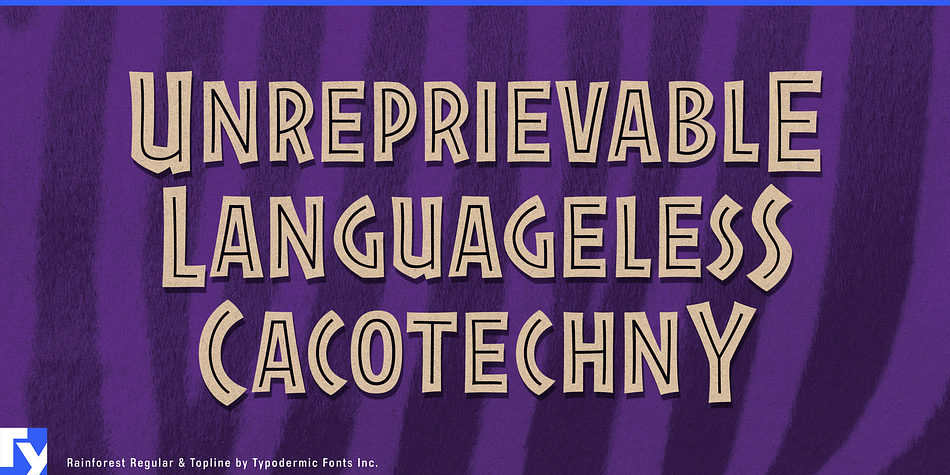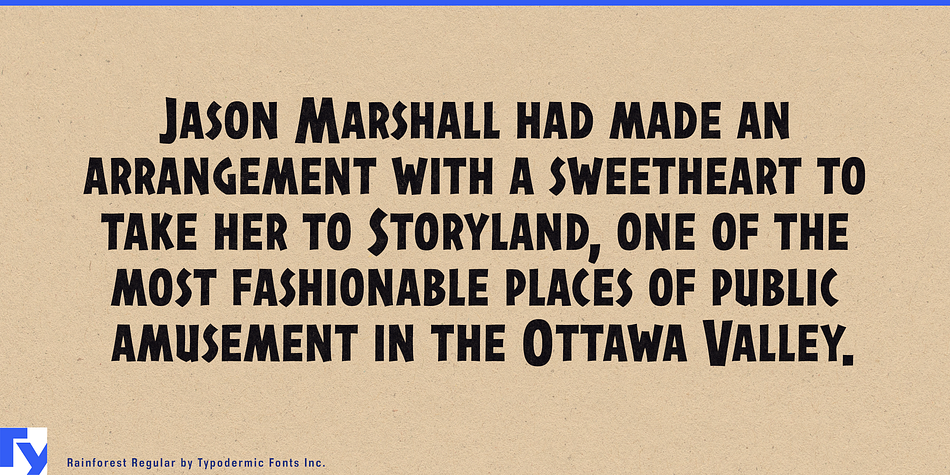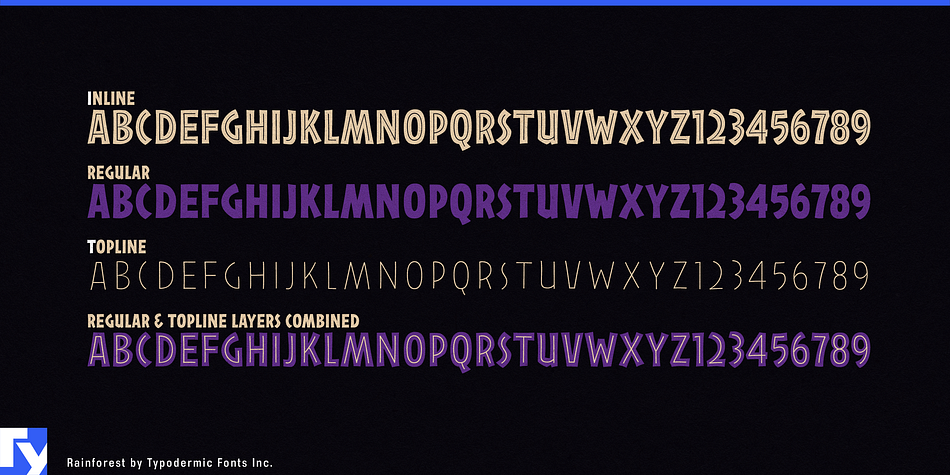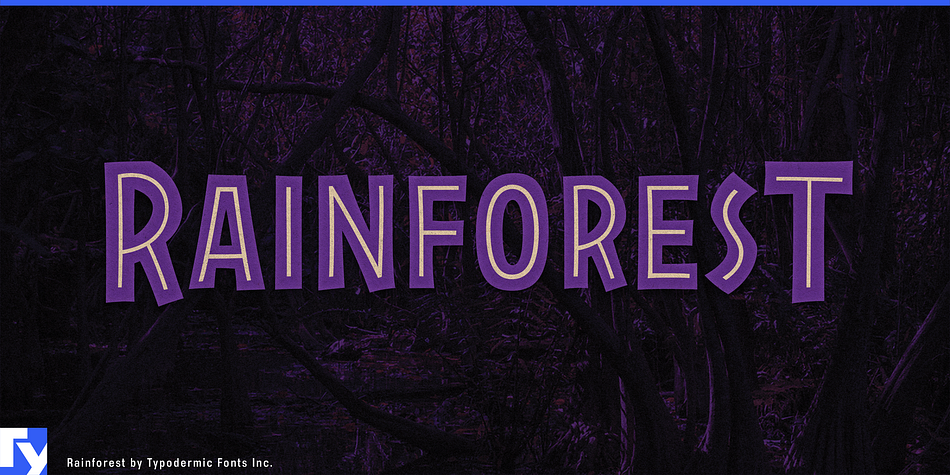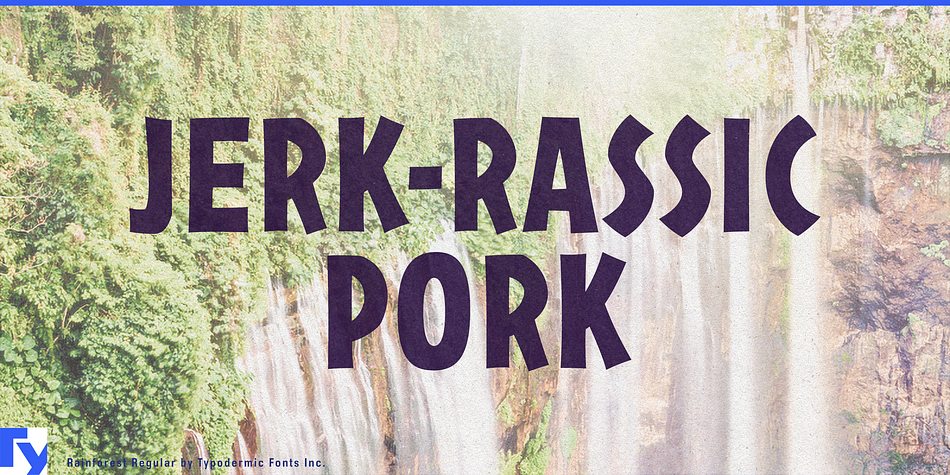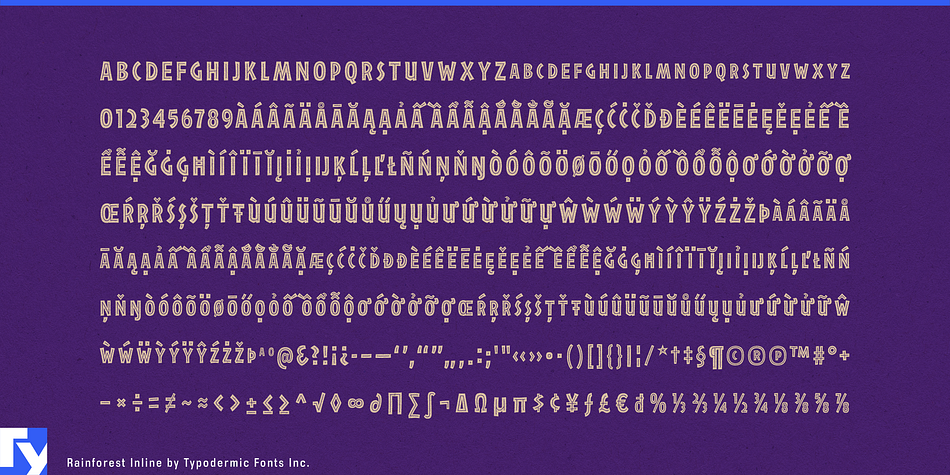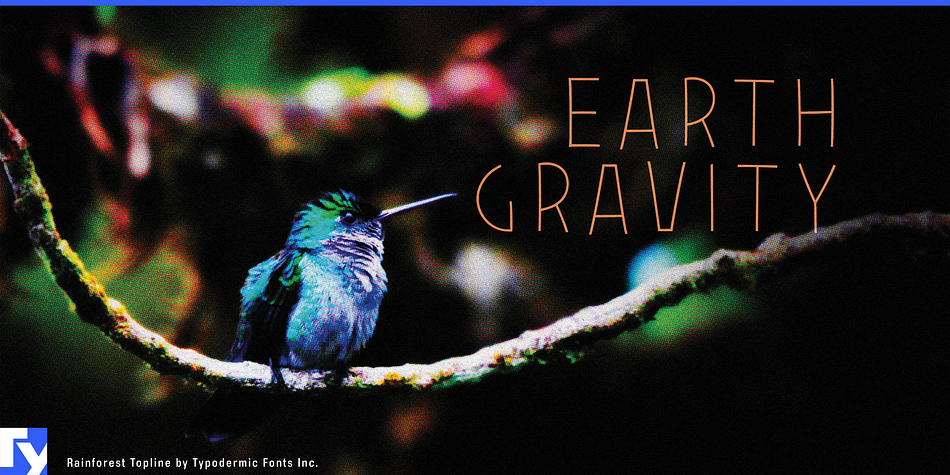
Rainforest is an art deco and display sans font family. This typeface has three styles and was published by Typodermic Fonts Inc.
Rainforest is an elevated small caps display font reminiscent of the Jurassic Park logo. Use it plain, inlined or experiment with a separate thin-line layer.